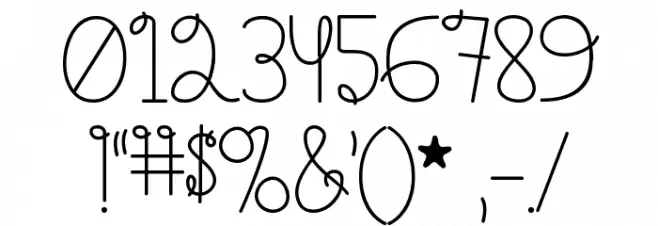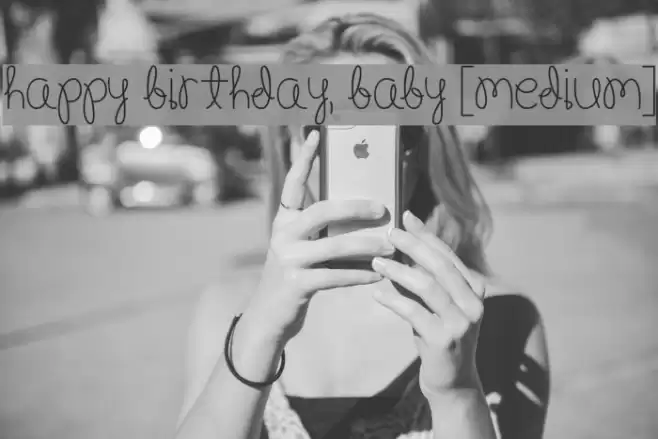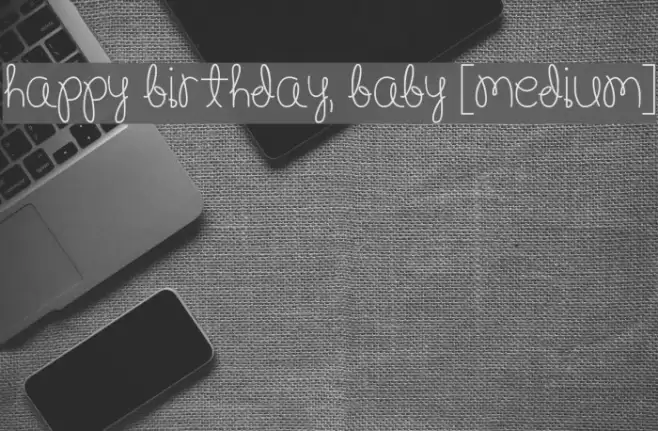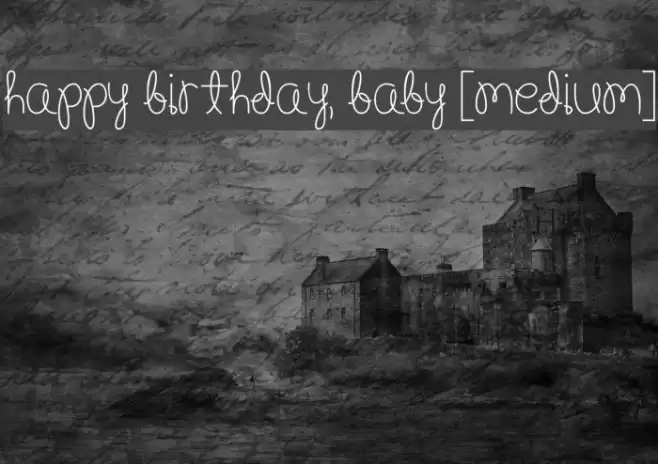
Happy Birthday, Baby [Medium] Font
Happy Birthday, Baby [Medium] Description
This playful and whimsical font features a handwritten style with a unique flair. Each character is crafted with a sense of fun, incorporating loops and curls that give it a lively personality. The letters are tall and slender, with a consistent stroke width that maintains readability while adding a touch of elegance. The numbers and special characters follow the same design ethos, ensuring a cohesive look across all text. This font is perfect for projects that require a personal touch, such as greeting cards, invitations, or playful branding.
A playful, handwritten font with loops and curls, perfect for whimsical designs from Curly fonts.
- Proposed Projects: Ideal for greeting cards, invitations, playful branding, and children's book illustrations.
- Overall Style: Whimsical
- Use Case: Headlines, Logos, Invitations